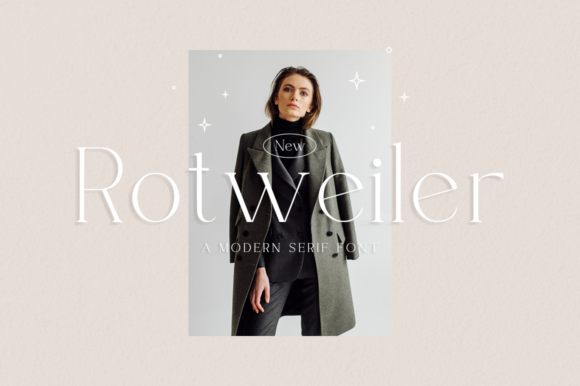
Journey into a world of refined artistry with Rotweiler; a delicate, thin-lettered, elegant serif font. Its enchanting style captures hearts and transforms ordinary words into breathtaking visual masterpieces.
Picture this: you're composing a business email, seeking to make a lasting impression. With Rotweiler, your words transcend the mundane, exuding professionalism and confidence. The delicate strokes and refined curves of each letter lend an air of sophistication to your message, ensuring your communication stands out amidst a sea of ordinary fonts.
Rotweiler isn't just a font; it's an experience. Its beautiful stationary art adds a touch of elegance to invitations, making every occasion truly special. Its eye-catching social media posts draw attention like magnets, ensuring your brand shines in the digital realm. And for those creative souls, Rotweiler is the perfect companion for crafting mesmerizing logos, branding, and website designs that leave an unforgettable mark.
But Rotweiler's charm doesn't end there. Its versatility extends to the world of print. Create stunning posters, flyers, and brochures that demand attention and leave a lasting impression. Elevate your marketing materials to new heights, captivating your audience with every visual touchpoint.
Rotweiler is more than just a font; it's an investment in your creativity. Its timeless beauty transcends trends, ensuring your designs remain relevant and captivating for years to come. Join the ranks of satisfied creatives who have discovered the transformative power of Rotweiler. Unleash your artistic vision and create masterpieces that speak volumes.